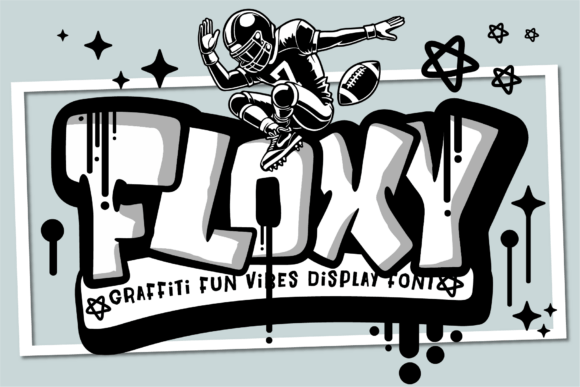
Floxy: A Playful Graffiti Font for Urban Designs
In the crowded world of design assets, finding a typeface that genuinely captures a specific vibe without feeling generic is a challenge. You've likely scrolled through countless sans serif font options for a clean look or a serif font for traditional elegance. But when the project calls for raw energy, youthful rebellion, and a touch of street art authenticity, you need something different. You need a font like Floxy. This isn't just another display font; it's a carefully crafted piece of modern typography that injects immediate personality into any canvas.
The Anatomy of Urban Cool
At its core, Floxy is a premium font that draws direct inspiration from the dynamic, often improvisational world of graffiti. Its letterforms are characterized by bold, expressive lines and a sense of controlled chaos. The strokes have a tangible weight and a slight irregularity that mimics the effect of a spray paint can or a thick marker on a textured wall. This isn't a clean, geometric sans serif font or an elegant script font. It's a creative font with an inherent attitude. The characters often feature subtle variations and connections that give the text block a rhythmic, almost musical flow when used in headlines or short bursts of copy.
The personality of Floxy is unmistakably youthful and energetic. It speaks directly to a generation that values authenticity and coolness over rigid formality. Think of the visual language of skate culture, hip-hop album art, or the vibrant murals in a city's arts district. Floxy translates that visual shorthand into a usable typeface for designers and creators. Its appeal lies in its ability to convey a message that is fun, approachable, and slightly edgy all at once. It avoids looking childish or unprofessional; instead, it projects confidence and a modern, trend-aware sensibility.
Where Floxy Truly Shines: Practical Applications
Understanding a font's personality is one thing; knowing where to deploy it effectively is another. Floxy excels in contexts where grabbing attention and establishing a specific mood is the primary goal. Its strength as a display font makes it a natural fit for projects that need to make an immediate visual impact.
Branding and Logo Design
For entrepreneurs and small business owners targeting a younger demographic, Floxy can be a cornerstone of a distinctive brand identity. Imagine a logo design for an indie record label, a streetwear startup, a youth-focused community center, or a trendy juice bar. Floxy provides instant recognition and sets a clear tone before a single word of copy is read. It tells your audience, "We get you." When used for a wordmark or a bold brand name, it creates a memorable signature. However, pairing it with a clean, simple sans serif font for body copy is crucial to maintain readability and create a balanced visual hierarchy.
Marketing, Social Media, and Packaging
In the fast-scrolling realm of social media graphics, stopping power is everything. Floxy is perfect for bold headlines on Instagram stories, YouTube thumbnails, or TikTok graphics. It conveys excitement for event promotions, product launches, or motivational quotes. For packaging design, especially in sectors like snacks, beverages, or cosmetics aimed at Gen Z and Millennials, Floxy can make a product leap off the shelf. It suggests the contents are fun, innovative, and not part of the mainstream establishment. The font's inherent energy can also translate well to eye-catching posters, flyers, and banners for concerts, festivals, or pop-up events.
Digital and Print Publishing
Beyond direct marketing, Floxy finds its place in editorial design and publishing. It can create stunning chapter titles or section headers in a magazine aimed at urban culture, music, or art. For bloggers and content creators, it can add a unique flair to featured image graphics or blog post titles, helping to build a recognizable visual style. In the realm of personal projects, it's ideal for designing custom T-shirts, stickers, or wall art. The key is to use it strategically for emphasis, not for long paragraphs of text.
Using Floxy Effectively: A Designer's Perspective
Integrating a strong character font like Floxy into a design system requires thoughtful execution. It's a powerful tool, but like any tool, its effectiveness depends on the user's skill.
Font Pairing is Everything. Floxy's bold, expressive nature means it will dominate any layout. The most successful designs pair it with a font that provides contrast and calm. A versatile sans serif font like Montserrat, Open Sans, or Lato creates a perfect partnership, offering clean readability for body text while letting Floxy handle the headlines. For a more dynamic, layered look, you might experiment with a simple, understated serif font, but proceed with caution to avoid visual clutter.
Consider Readability and Hierarchy. Use Floxy for headlines, subheadings, pull quotes, and short, impactful statements. Avoid setting entire paragraphs in it, as the stylistic details can reduce reading comfort over long stretches. Its role is to create visual interest and guide the viewer's eye to the most important information first. Think of it as the headline act, with your body copy font as the reliable supporting band.
Evaluate the Project Fit. Before selecting Floxy, ask yourself if the project's audience and goals align with its personality. Is the goal to appear authoritative, traditional, or highly formal? If so, a classic serif or a neutral sans serif might be better. Floxy is for when you want to inject fun, creativity, and a street-smart edge. It's a commercial font, so always verify the licensing for your specific use case, whether it's for a client's logo, merchandise for sale, or a digital advertising campaign.
Ultimately, Floxy is more than just a collection of letters. It's a design asset that carries a specific cultural signal. When chosen for the right project and used with strategic intent, it can transform a mundane layout into something vibrant and engaging. It allows designers, marketers, and creators to speak a visual language that resonates deeply with a young, style-conscious audience, bringing a genuine slice of urban energy to the digital and physical world.